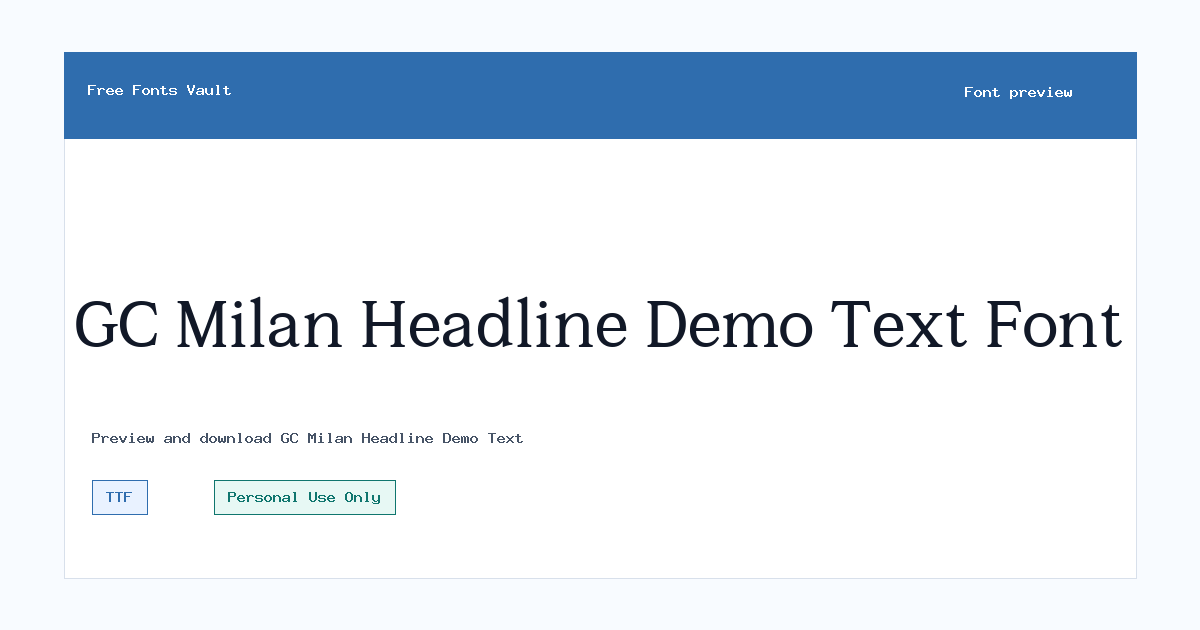
GC Milan Headline Demo Text
- Designer Zainaldi Ibrahim of Glyphonic
GC Milan Headline Demo Text is a serif demo font from Glyphonic, designed for testing headline-style typography with a text-friendly feel. It comes in regular and bold TTF files, making it useful for comparing lighter and stronger emphasis before you decide how it fits your project.
GC Milan Headline Demo Text has the formal structure you would expect from a headline serif, but the “Text” naming suggests a version meant to hold up better in longer wording than a purely decorative display cut. Use the preview box to test real titles, short descriptions, quotes, and menu-style labels. The regular style can work for calmer headings or elegant subheads, while the bold style gives stronger contrast for names, section titles, and poster-like lines.
- Serif headline style with a text-oriented demo naming
- Testing elegant headings, subheads, quotes, and short editorial text
GC Milan Headline Demo Text is credited to Zainaldi Ibrahim of Glyphonic.
What styles are included?
There are two normal-style weights: a regular weight and a bold weight.
Who designed GC Milan Headline Demo Text?
The font is credited to Zainaldi Ibrahim of Glyphonic.
What is this font best used for?
It is best for personal-use headline tests, title layouts, quote graphics, invitations, and other short text where a serif headline look is wanted.
Can I use it for body text?
You can test it for short text blocks, but check readability carefully. It is safer for headings, subheads, and short display copy than for long paragraphs.